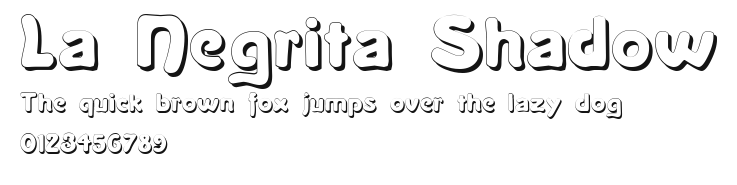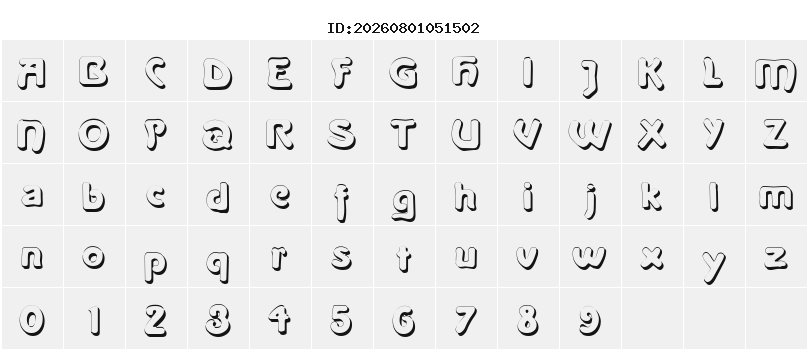
• Font Name: La Negrita Shadow
• Full Font Name: La Negrita Shadow
About La Negrita Shadow.ttf
La Negrita Shadow.ttf is a modern, elegant sans-serif font designed for ultimate readability and visual harmony. Perfect for branding, headlines, web design, and print materials.